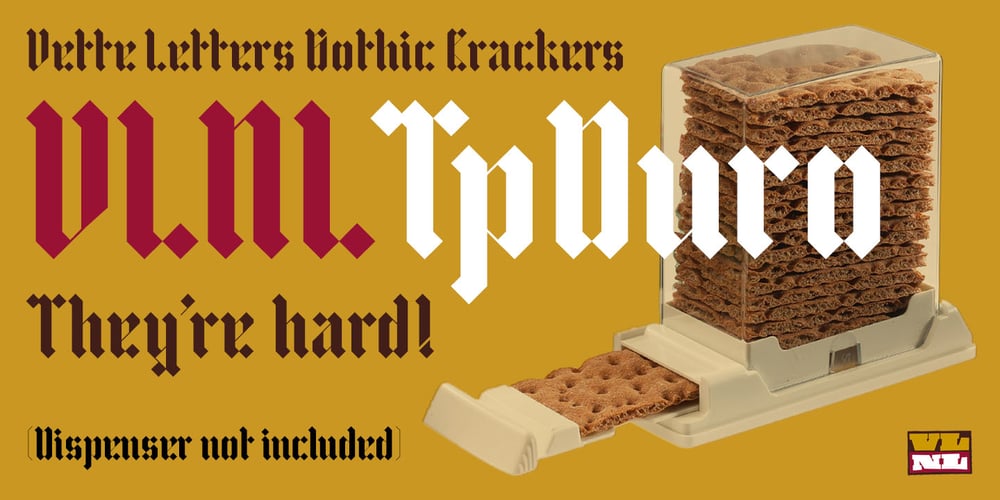
VLNL TpDuro
VLNL TpDuro font
VLNL TpDuro Font Family was designed by Martin Lorenz, Joan Ramon Pastor and published by VetteLetters. VLNL TpDuro contains 1 styles and family package options. VLNL TpDuro was designed by chef Martin Lorenz and Juanra ‘Wete’ Pastor. Its concept was inspired by an Albrecht Dürer design from 1525, which shows a system to construct a gothic lowercase letter. Following the logic of this lowercase construction, but not the traditional uppercase letters of regular fraktur (brokenscript) alphabets, some brand new upper case letters were designed. The 45 degree tilted square that forms the basis of the letters, is as square and hard as a cracker. And we love crackers. You can put cheese on them. The ‘pixel’ feeling of the downstroke was intensified by repeating the rotated square module as often as they could. All this resulted in a strong, dark typeface with a steady rhythm, with one foot in history and the other in modern times. It works well as a display typeface for short texts, headlines and logos. Music festivals and heavy metal bands should also pay attention. This is hard stuff.